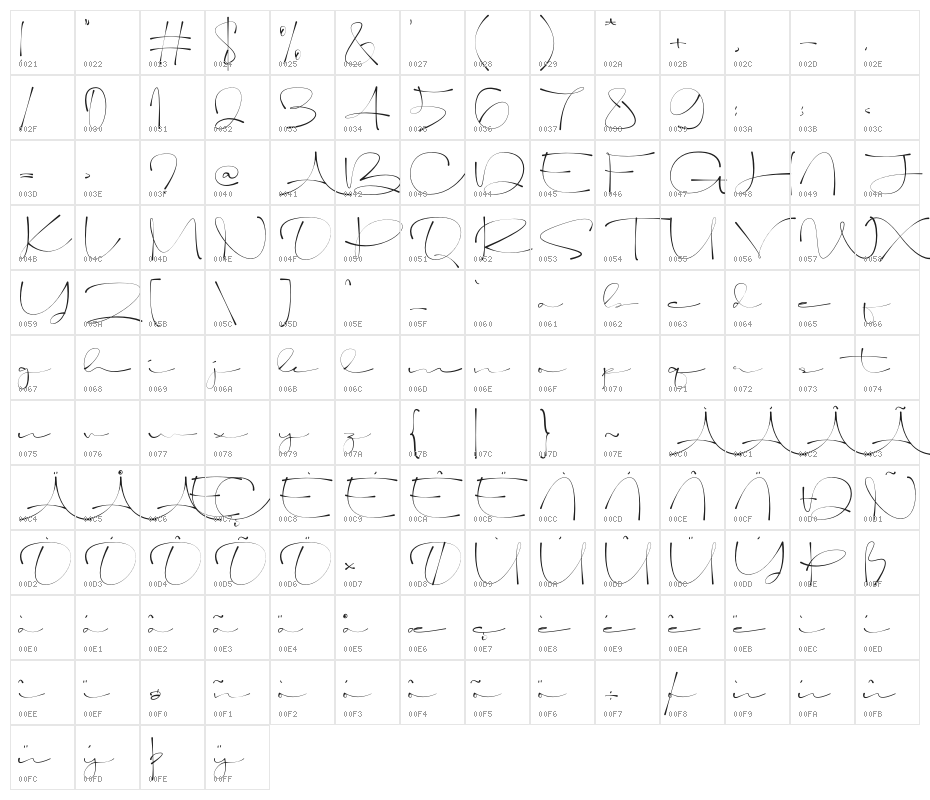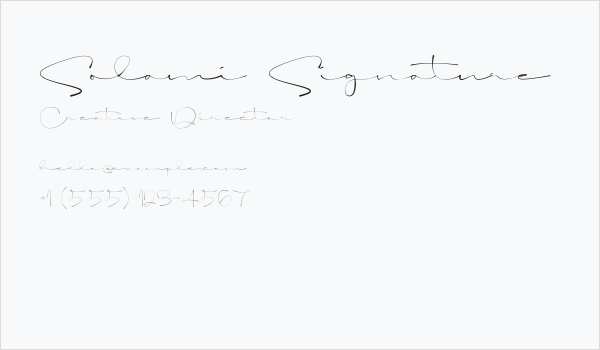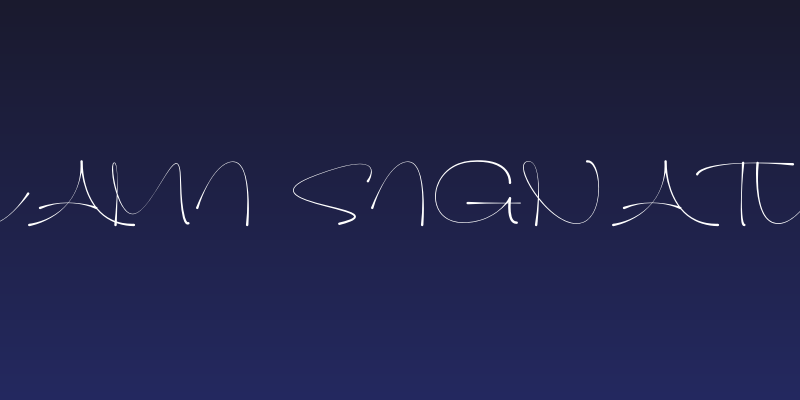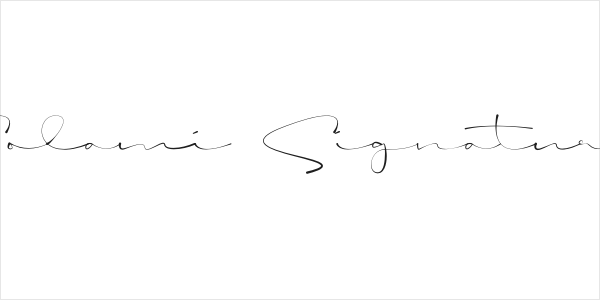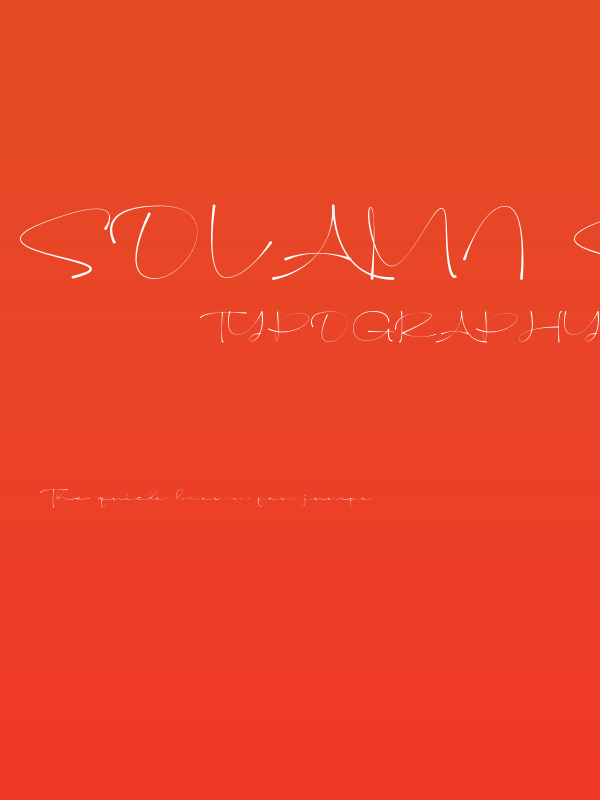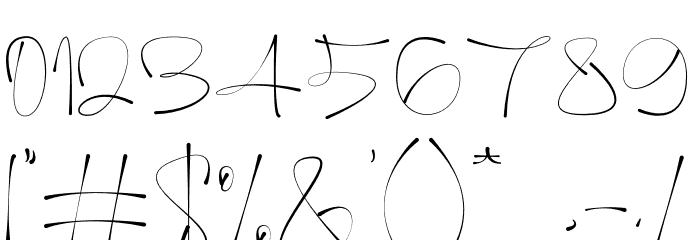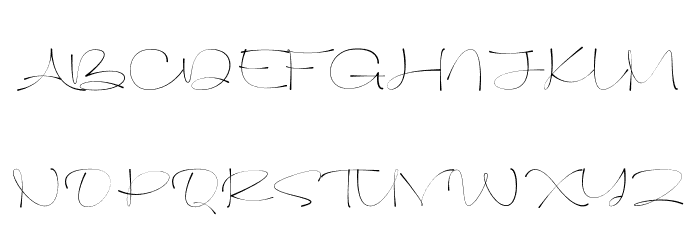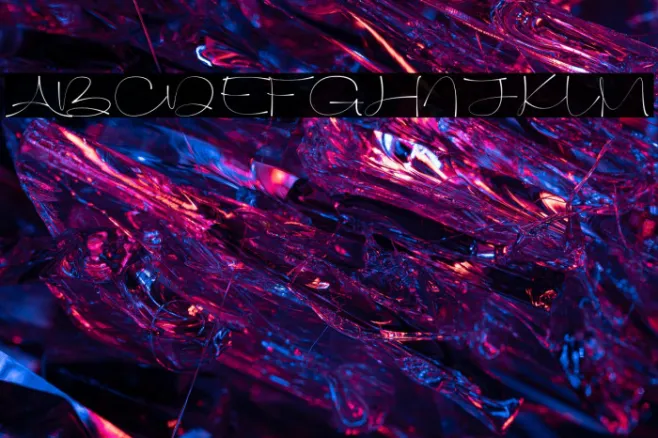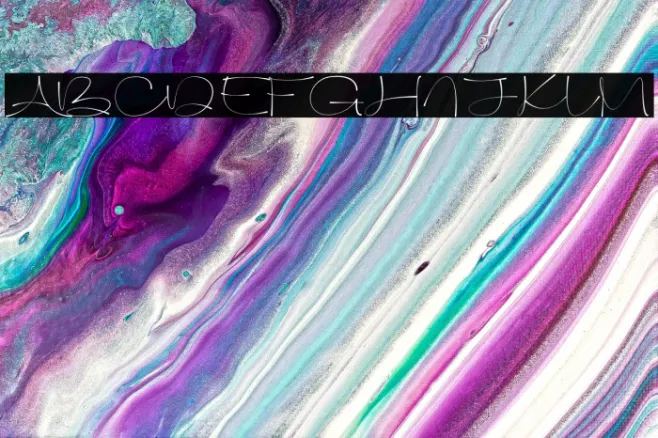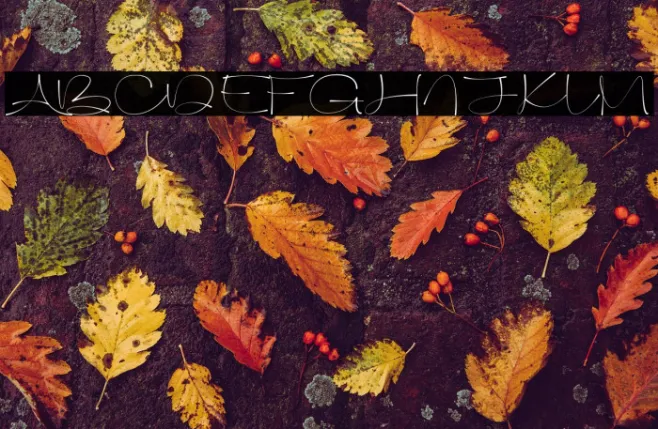
Solami Signature Font
Solami Signature Description
This font exudes a sophisticated and elegant charm with its flowing, cursive script style. The letters are interconnected, creating a seamless and fluid appearance that mimics natural handwriting. Each character is crafted with delicate strokes, showcasing a graceful and airy quality. The uppercase letters maintain a consistent height, while the lowercase letters vary slightly, adding a touch of whimsy. The numerals and special characters follow the same elegant style, ensuring a cohesive look throughout. This font is perfect for projects that require a personal and artistic touch.
| Proposed Projects | Ideal for wedding invitations, personal branding, greeting cards, and elegant stationery. |